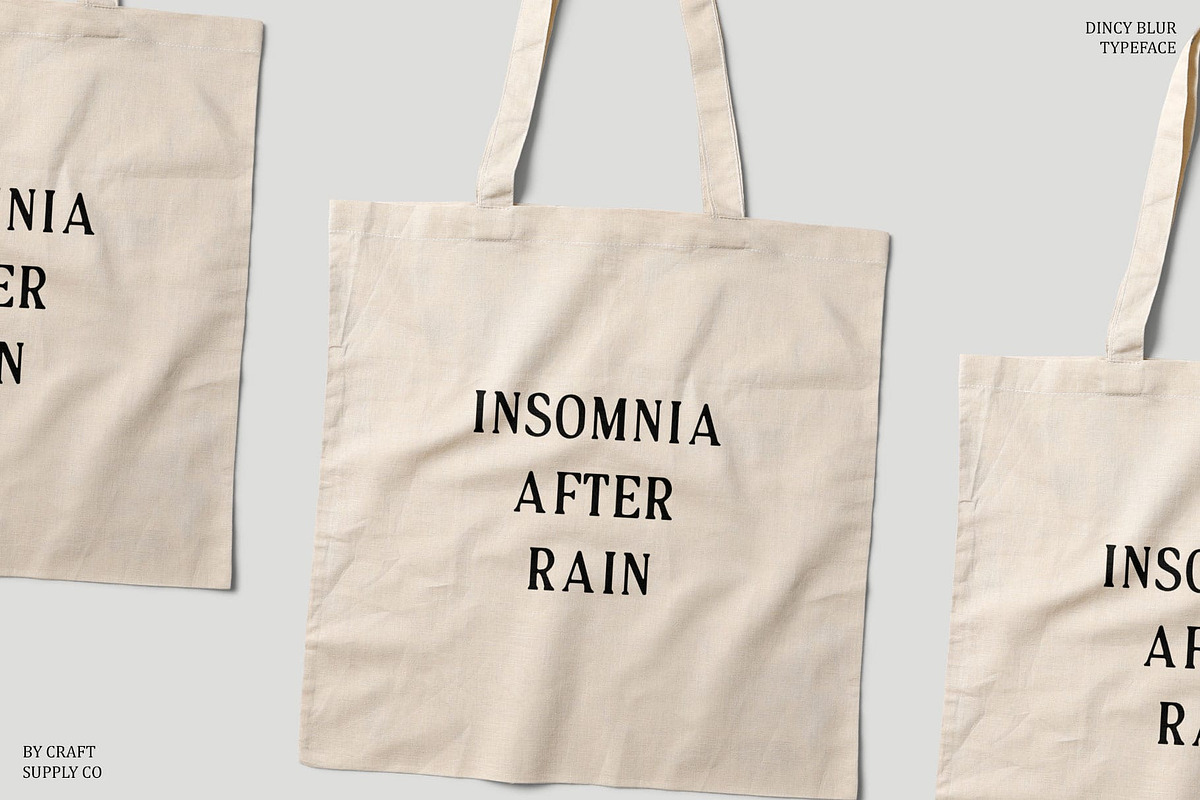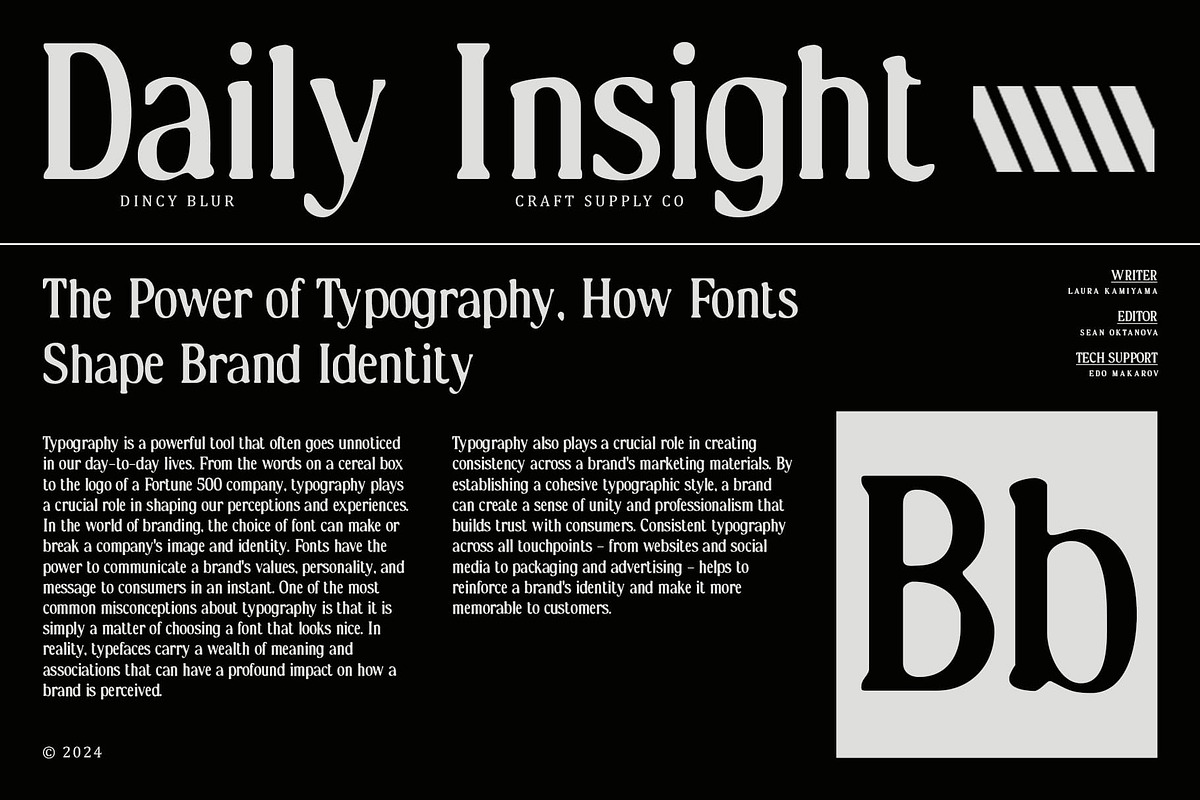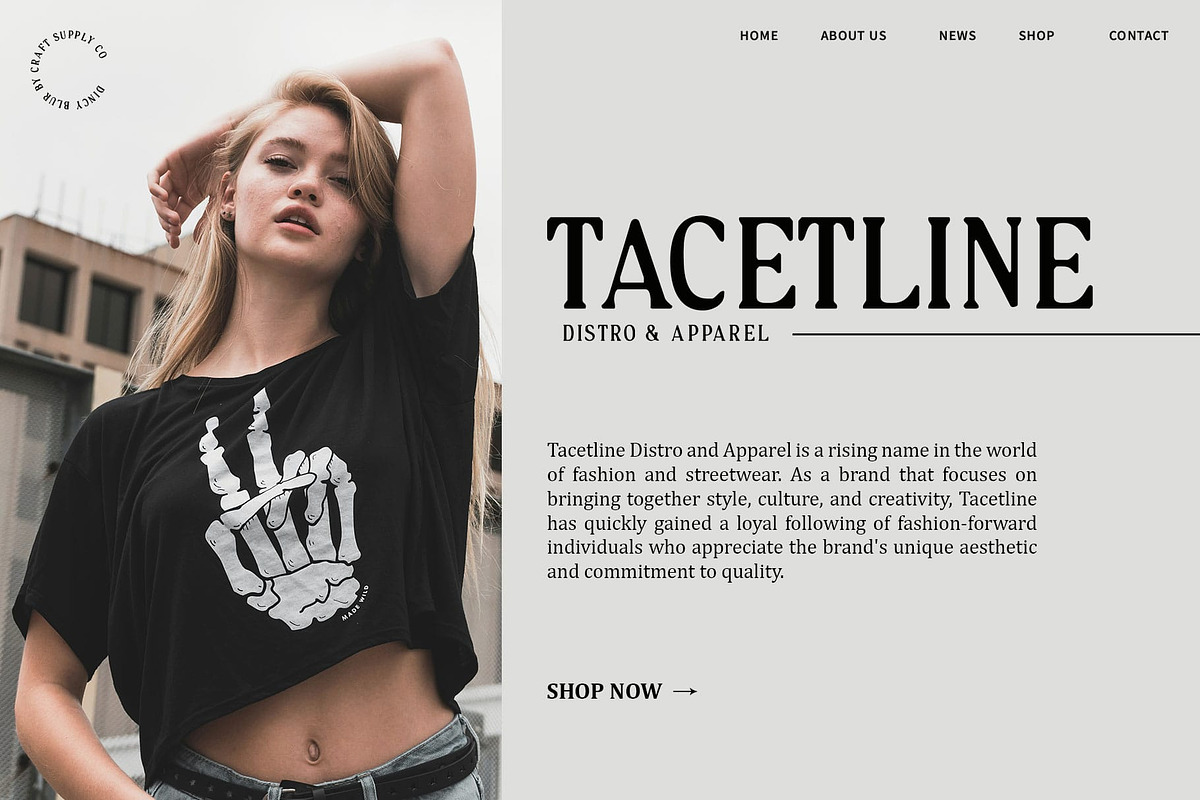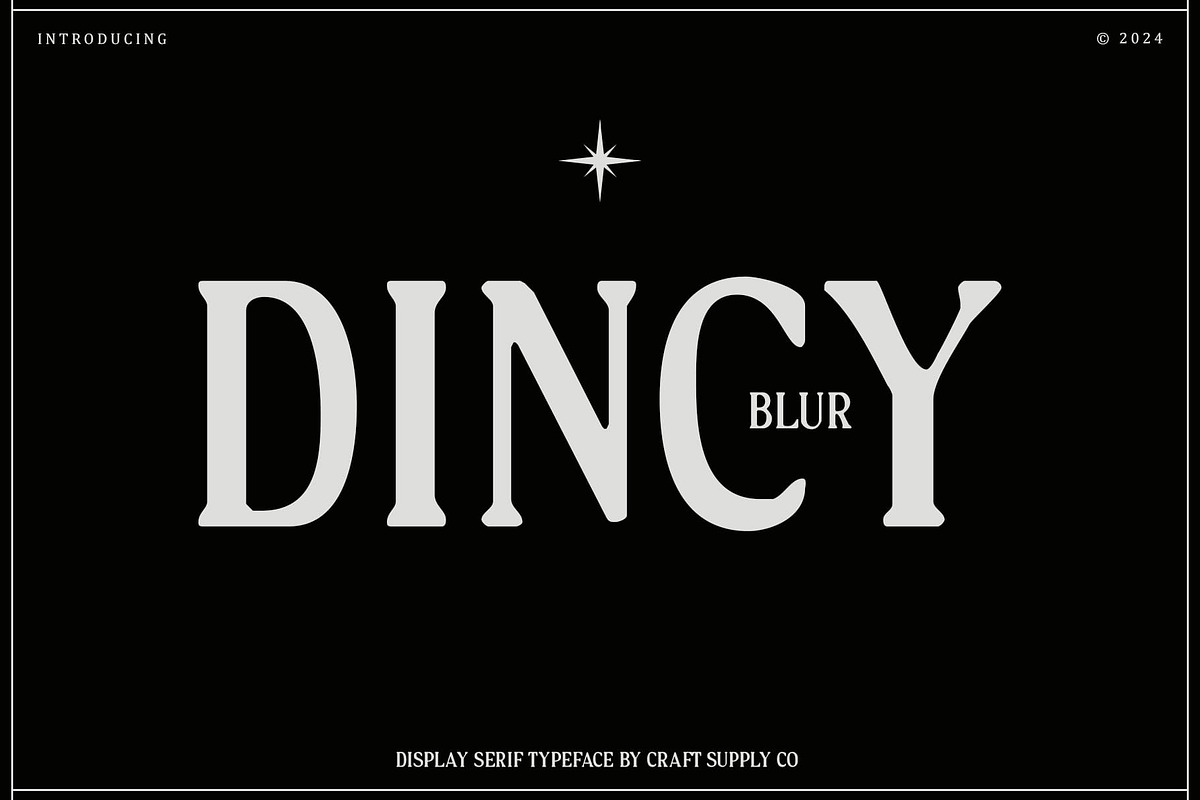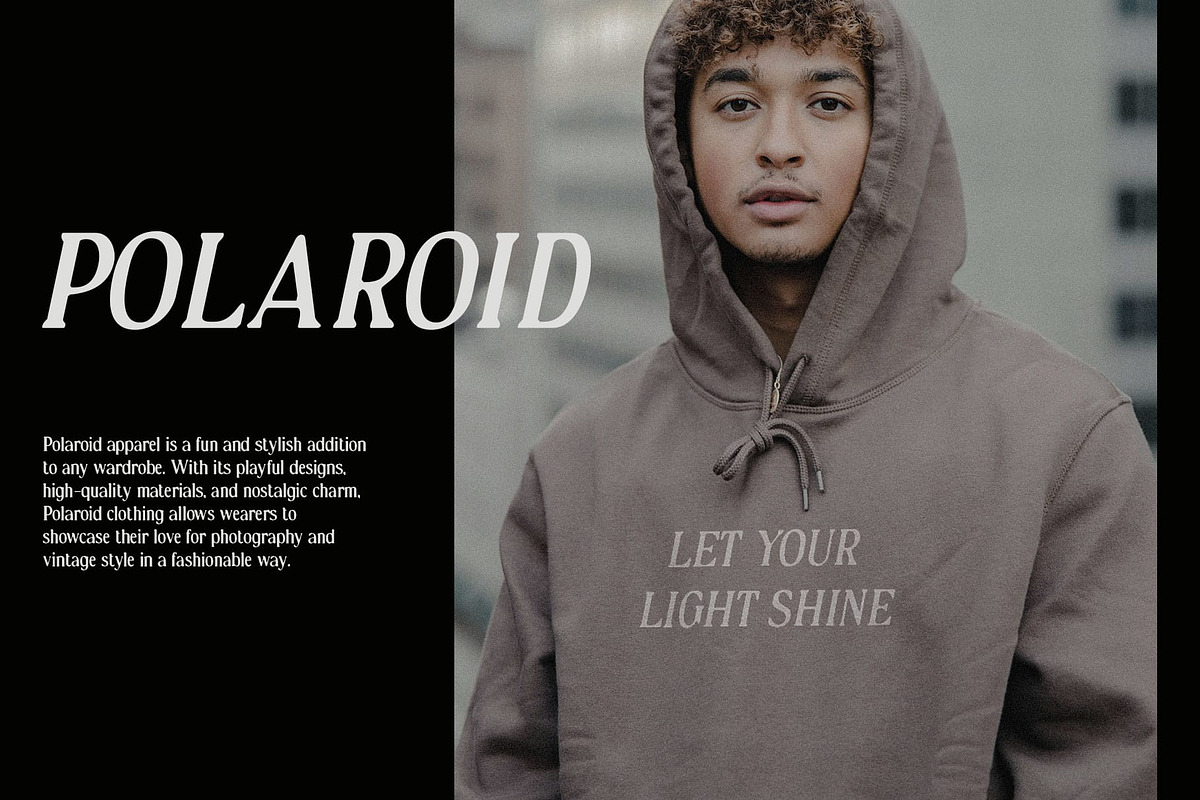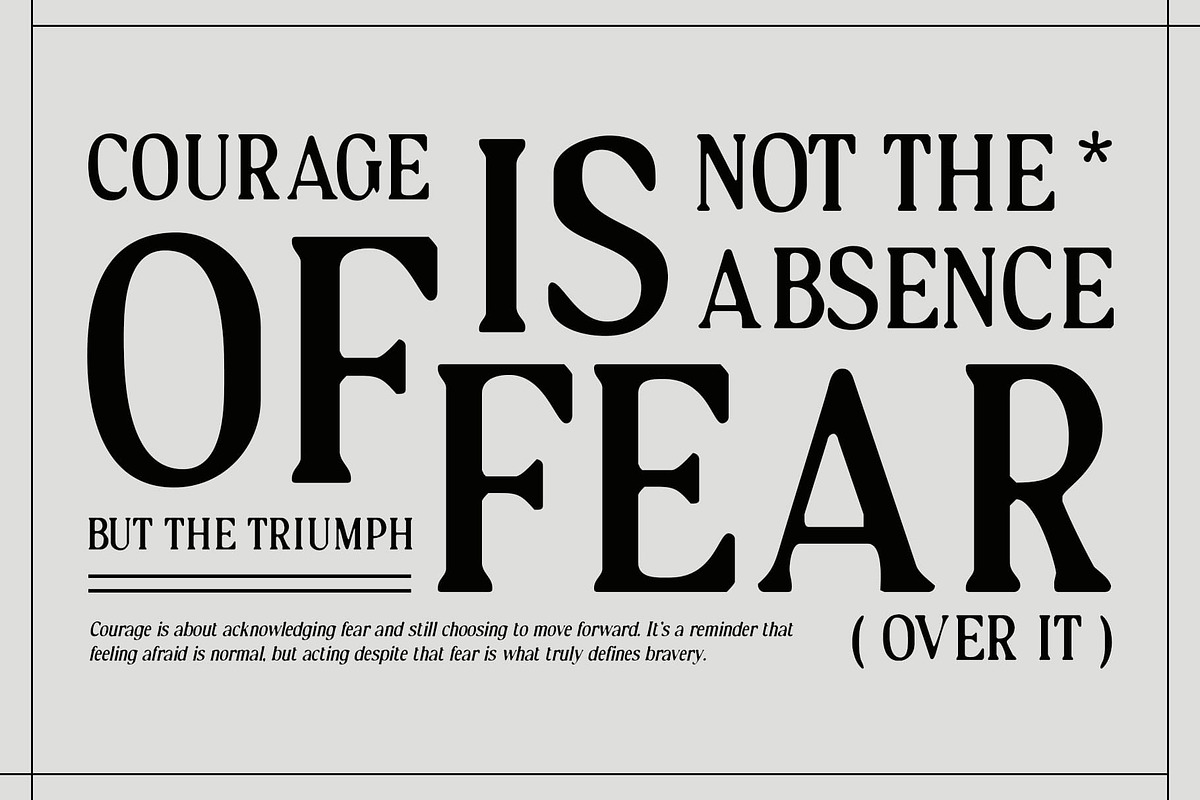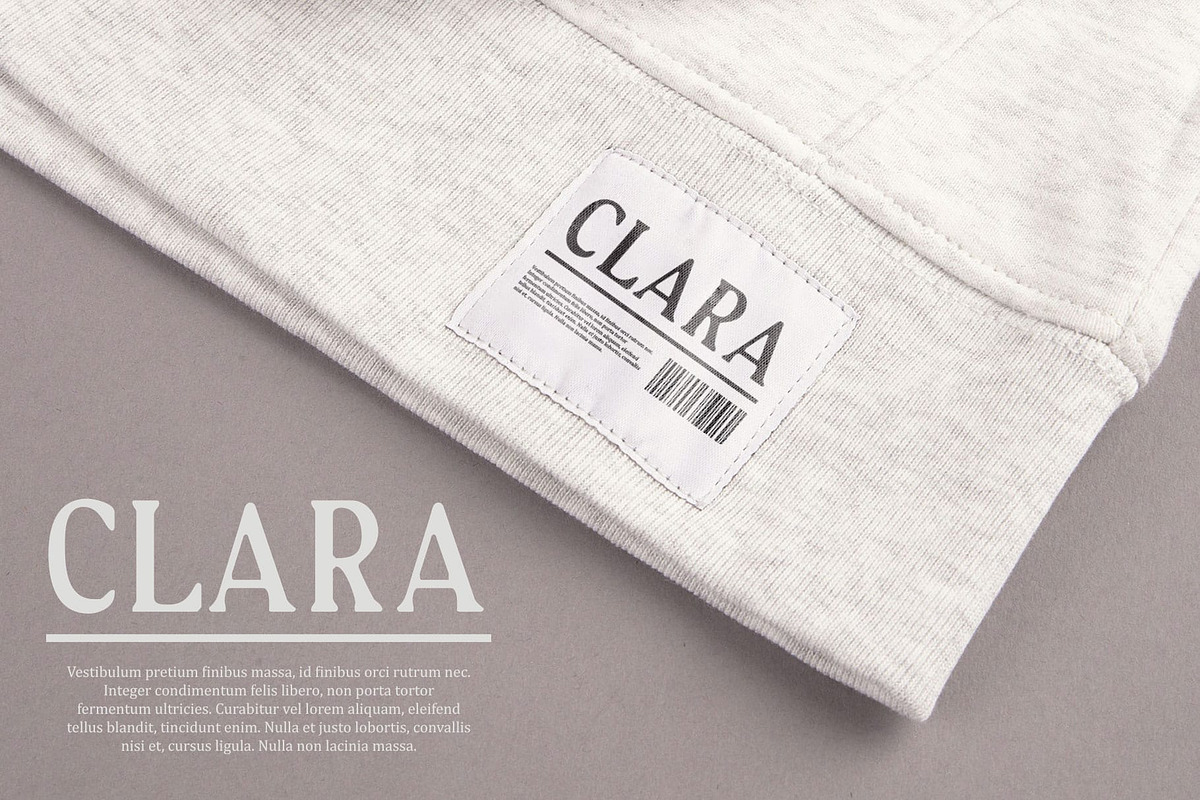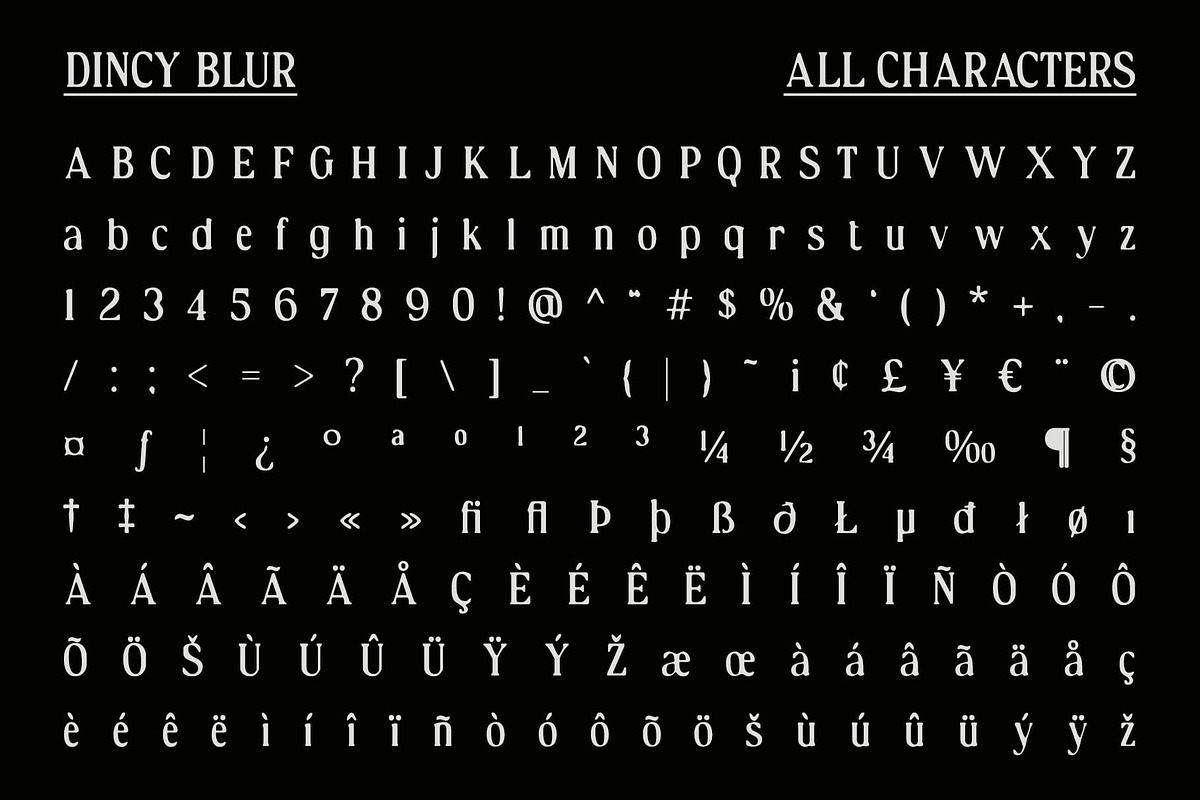
Dincy Blur
Dincy Blur: Modern Serif Font with Blur Effect
Elegant Fusion of Tradition and Modernity
Dincy Blur is a modern serif font that strikes a balance between traditional elegance and contemporary visual appeal with its subtle blur effect. Ideal for designs that aim to blend classic sophistication with modern artistic elements, this font exudes a timeless and refined impression.
Sophisticated Serif Design
The serif characters of Dincy Blur are crafted to enhance readability and convey a sense of elegance. Each letter maintains clarity while the blur effect adds a touch of artistic refinement, making this font suitable for a variety of design applications.
Subtle yet Prominent Visual Touch
The blur effect in Dincy Blur introduces a subtle yet prominent visual touch that enhances the font’s overall elegance. This artistic element adds depth and dimension to typographic compositions, ensuring your designs stand out with a sophisticated and contemporary aesthetic.
Perfect for Diverse Design Projects
Ideal for editorial layouts, branding, and luxury packaging, Dincy Blur excels in projects that require a harmonious blend of traditional and modern design elements. Its ability to convey elegance and visual appeal makes it a versatile choice for enhancing the aesthetic value of various design contexts.